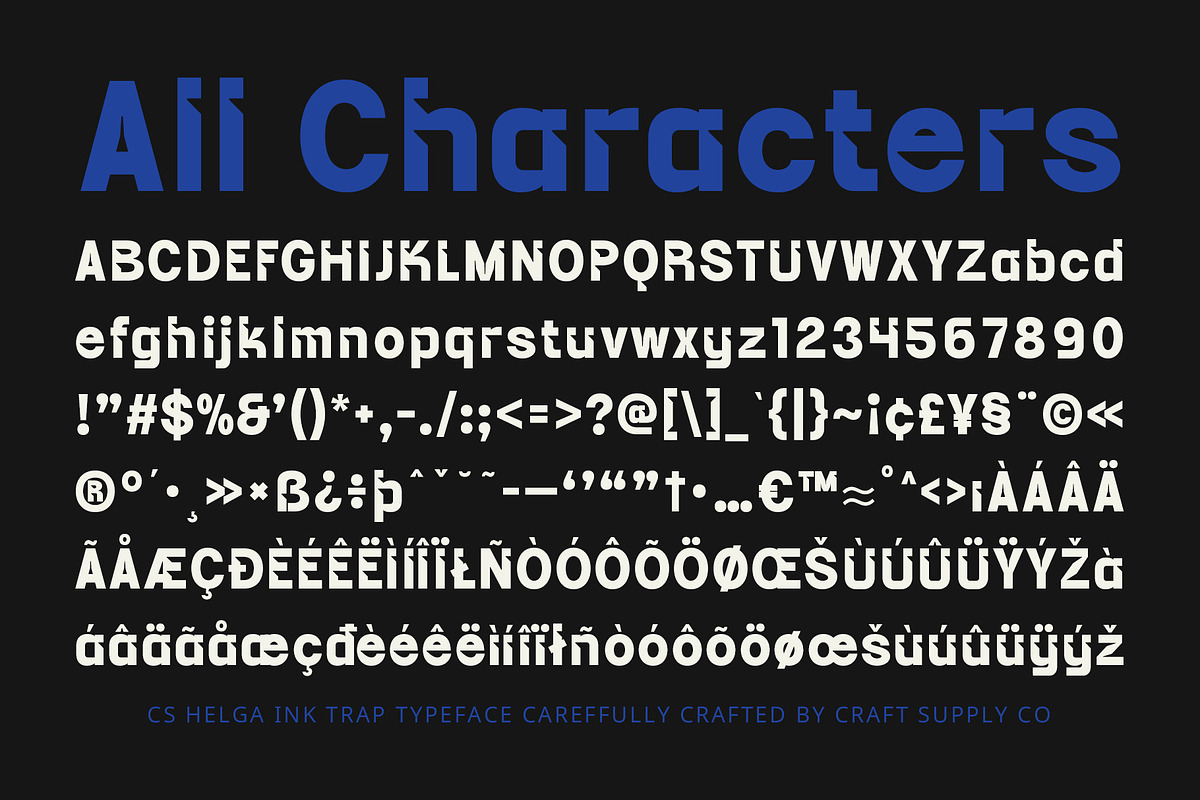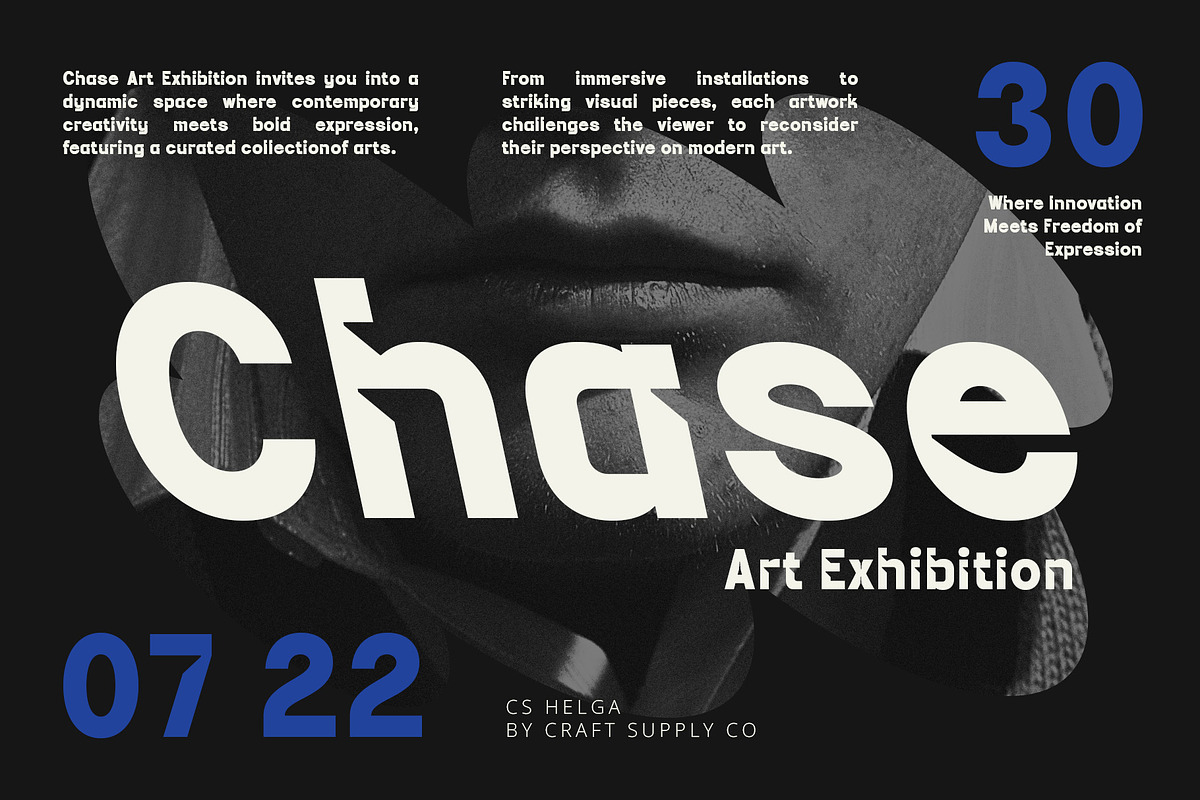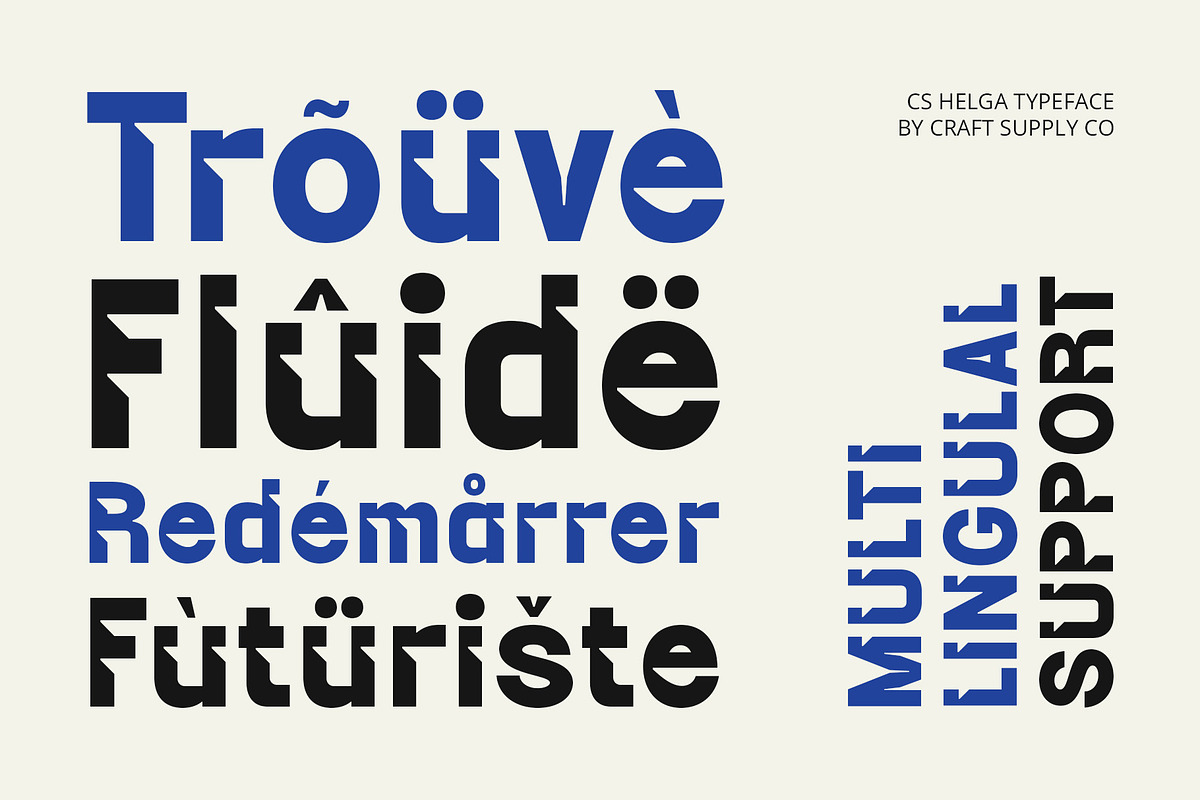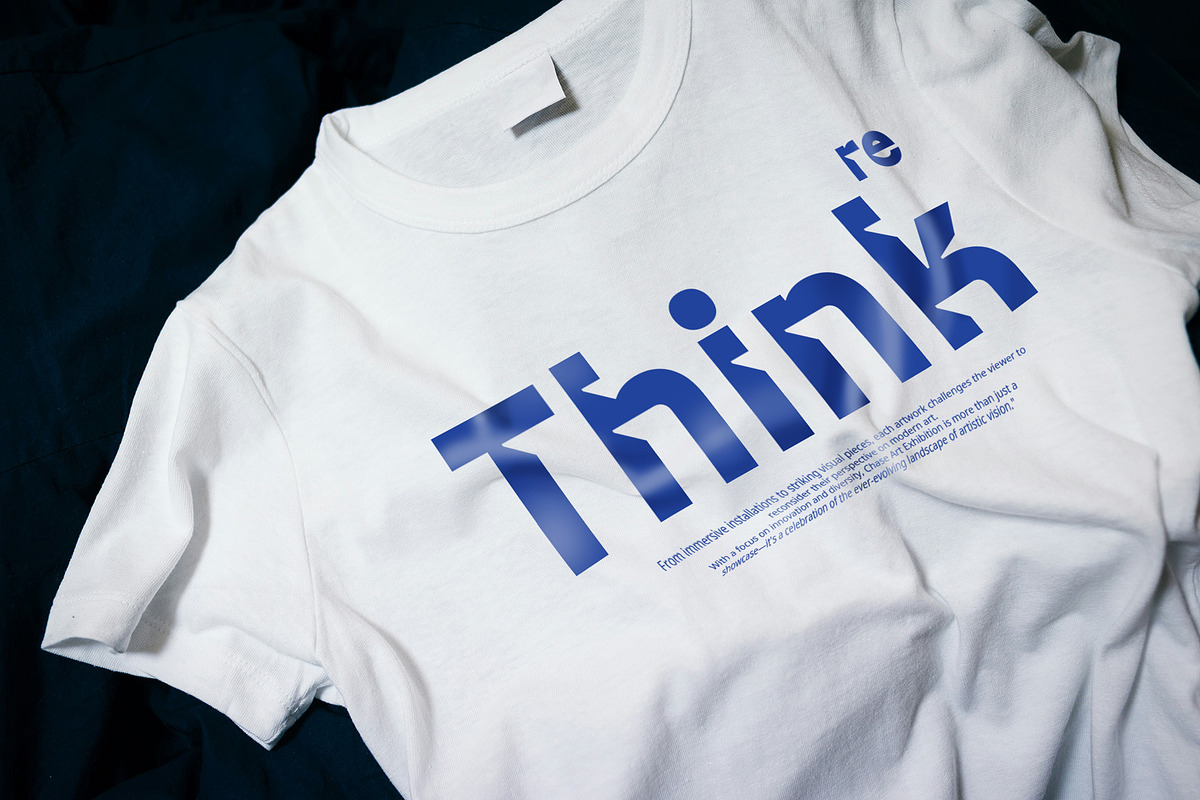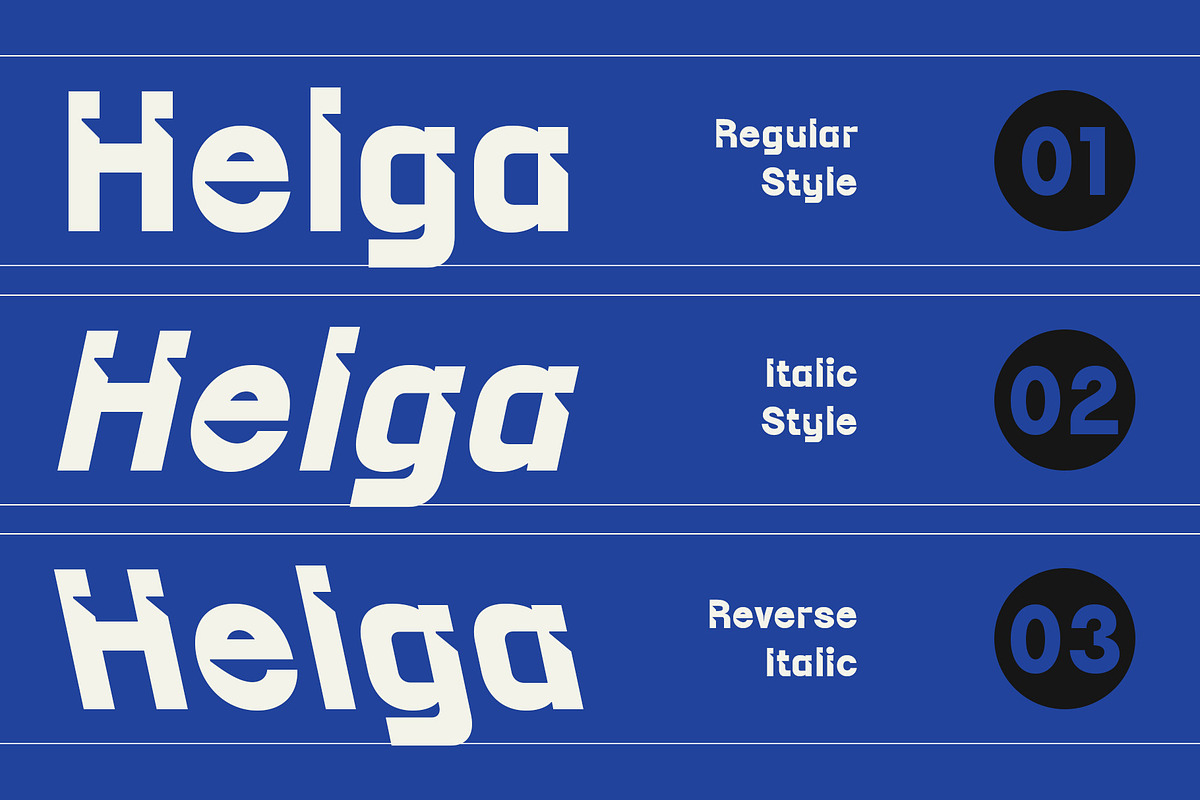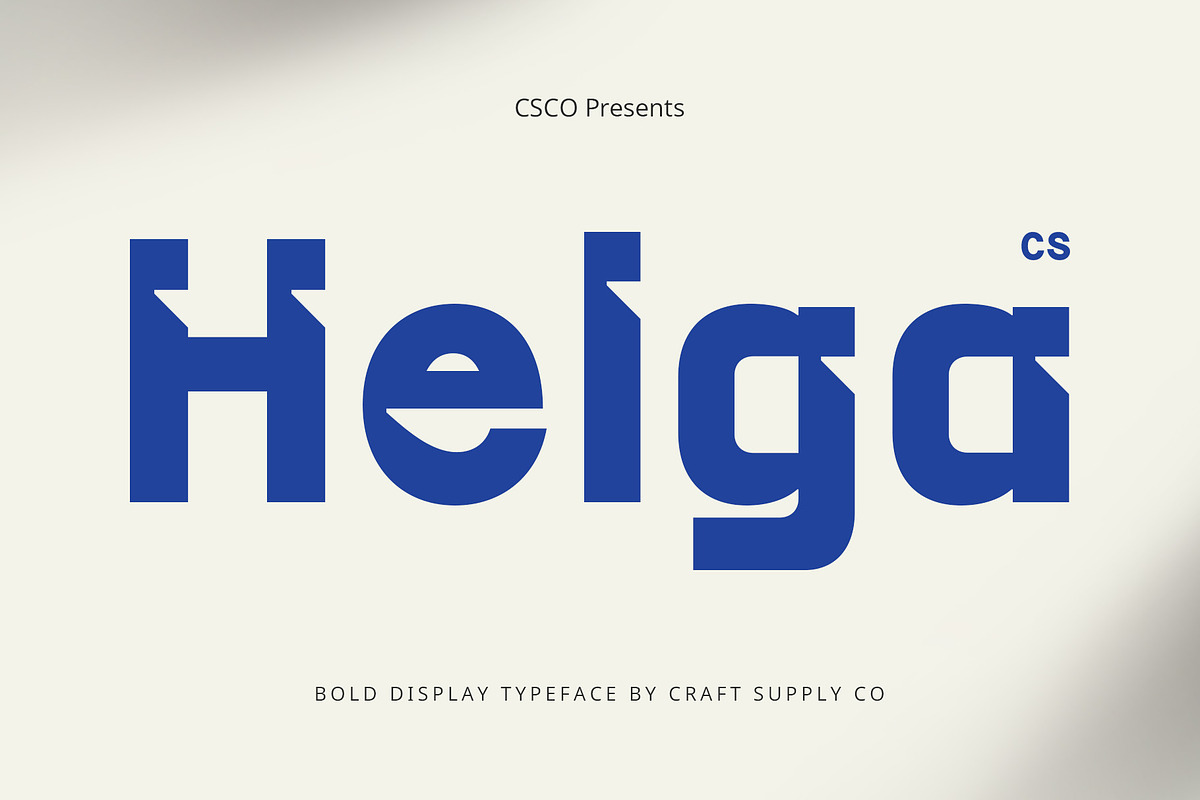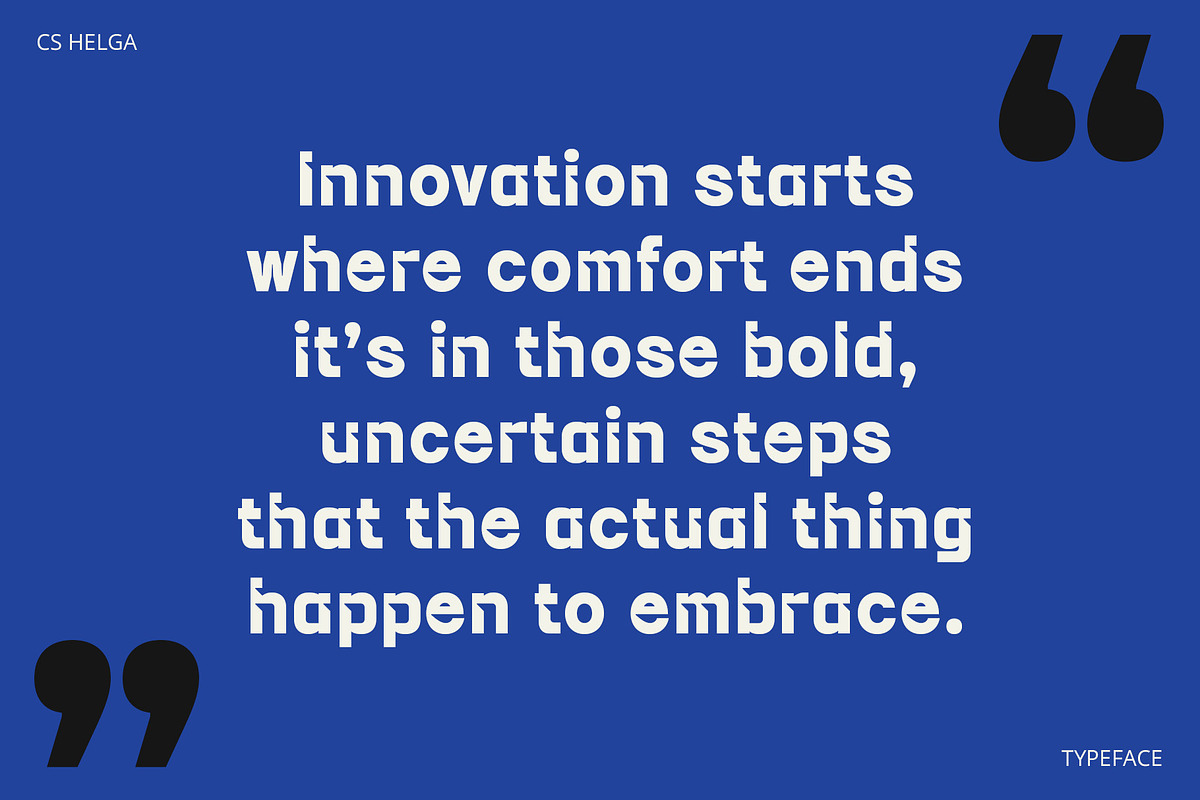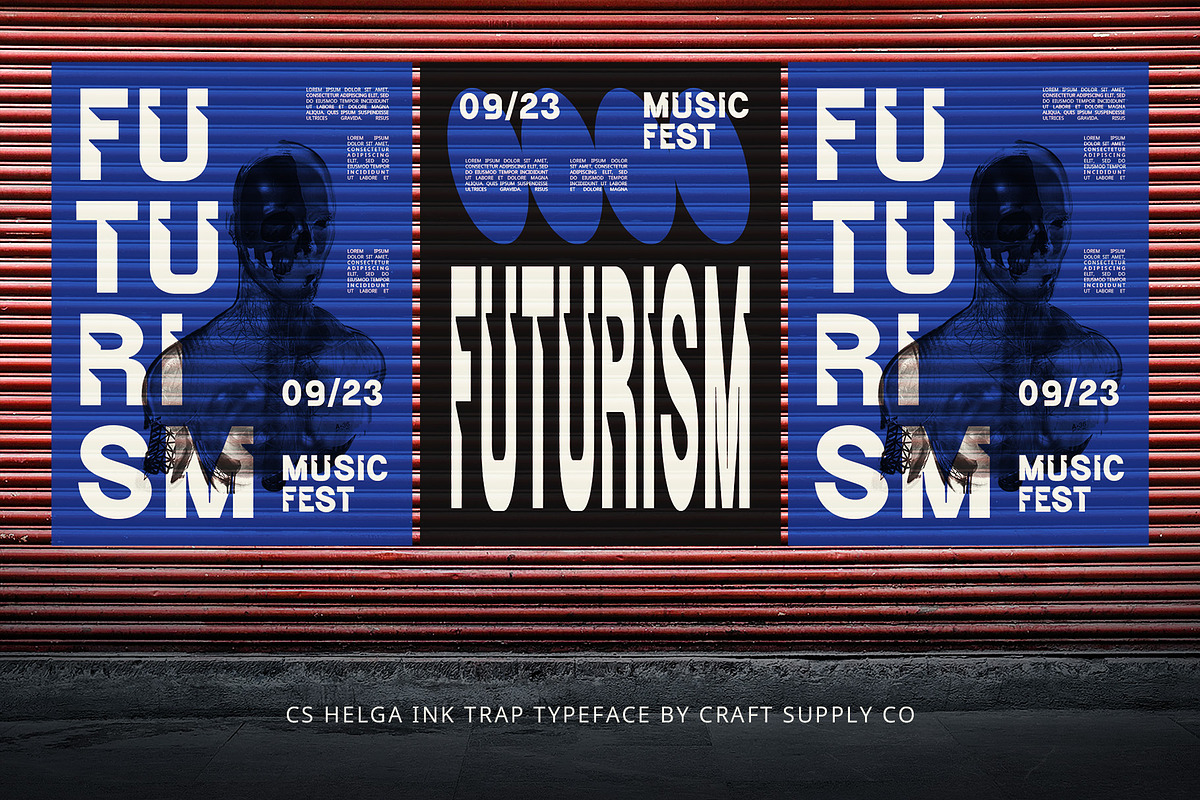
CS Helga – Inktrap Font
CS Helga Font: The Bold Inktrap Sans Serif Font
Modern Design with Functional Elegance CS Helga is a modern sans serif font that marries bold design with high functionality, featuring distinct inktrap details that enhance both aesthetics and performance. The innovative inktraps are designed to minimize ink spread during printing, ensuring exceptional readability and clarity even at smaller sizes. This font strikes a perfect balance between contemporary style and practical usability, making it a standout choice for a variety of design projects.
Bold Proportions for a Confident Impression With its thick proportions and robust letterforms, CS Helga conveys a sense of strength and confidence. This makes it ideal for branding and advertising applications, where a commanding presence is essential. Whether you’re designing eye-catching logos, promotional materials, or digital interfaces, CS Helga provides the boldness needed to make a lasting impact.
Versatile Applications for Modern Design CS Helga’s versatility shines through in its ability to adapt to various design applications. From corporate branding to creative digital designs, this font maintains its clarity and modern appeal across different media. Its clean lines and functional inktrap design ensure that your message is not only seen but also understood, elevating the overall visual experience.